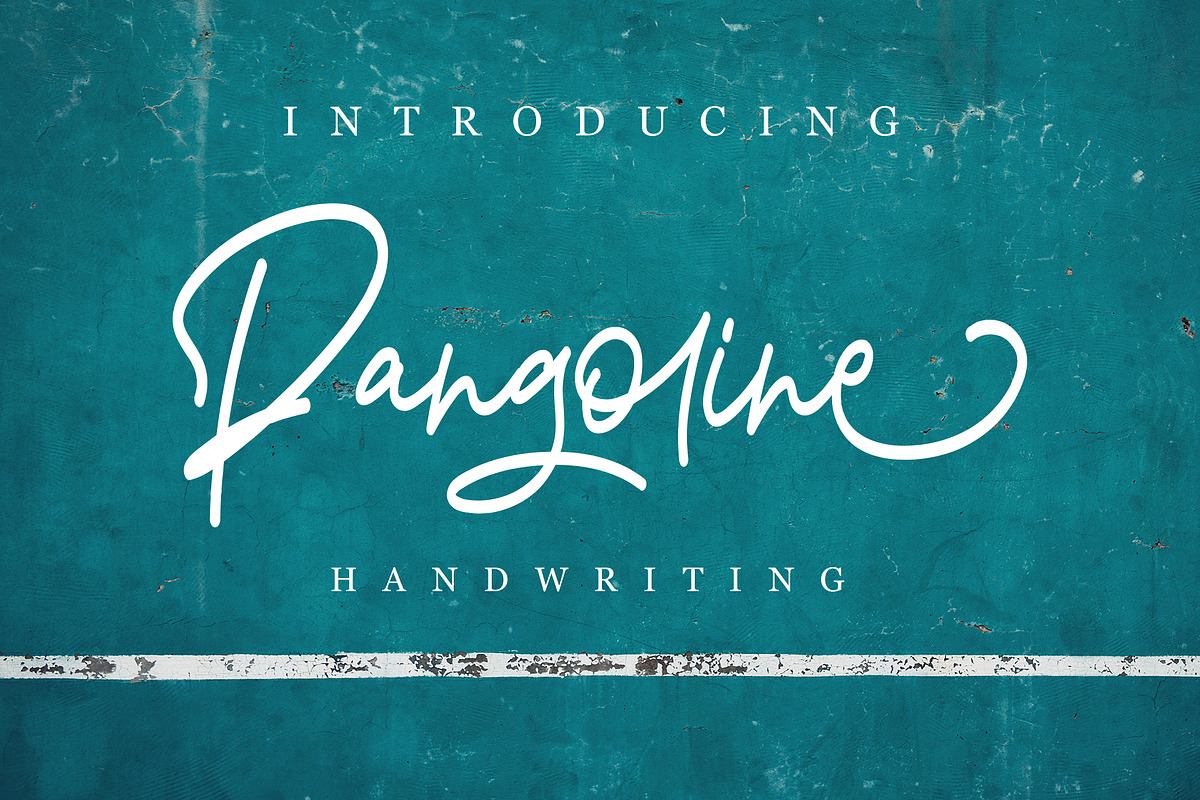
Pangoline Handwriting Script Font Free Download
Pangoline Handwriting Script Font Free Download is an elegant and flowing script typeface designed to give your designs a personal, handwritten touch. With its smooth curves, natural letterforms, and organic style, this font is perfect for wedding invitations, personal branding, greeting cards, quotes, and social media graphics.
The font's casual yet polished design makes it ideal for both formal and informal projects, offering a balance of sophistication and warmth. Whether you're crafting a modern logo, a heartfelt note, or a decorative piece, Pangoline Handwriting Script Font Free Download adds a unique, human feel to every word.